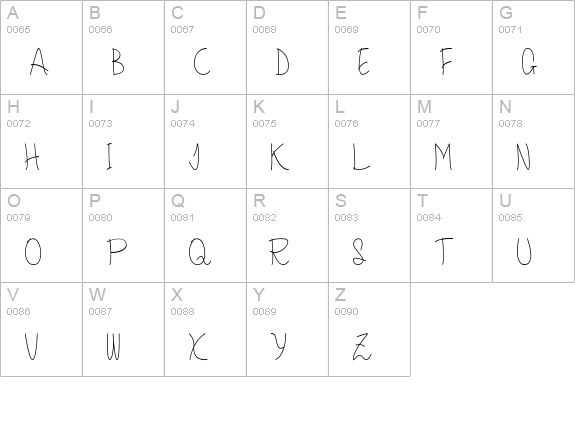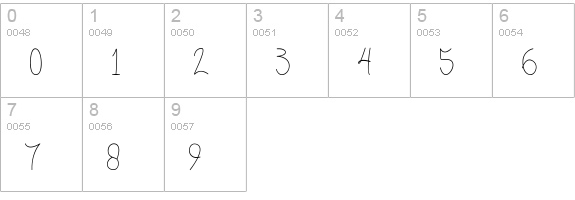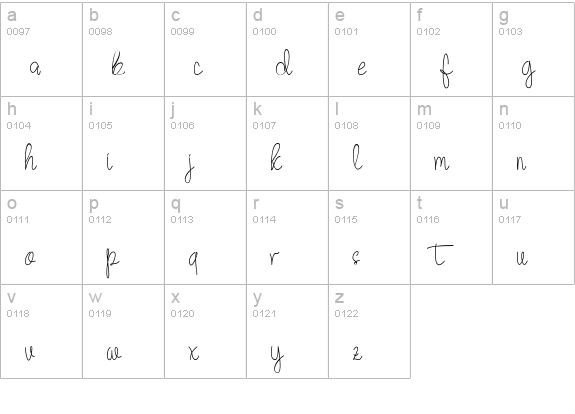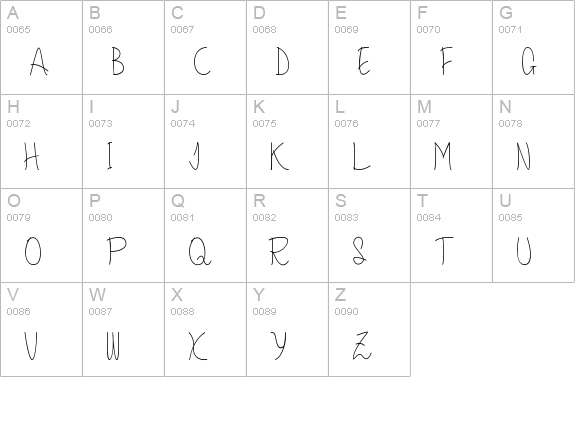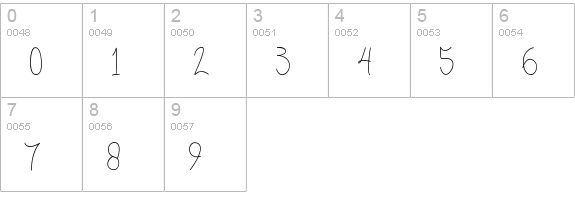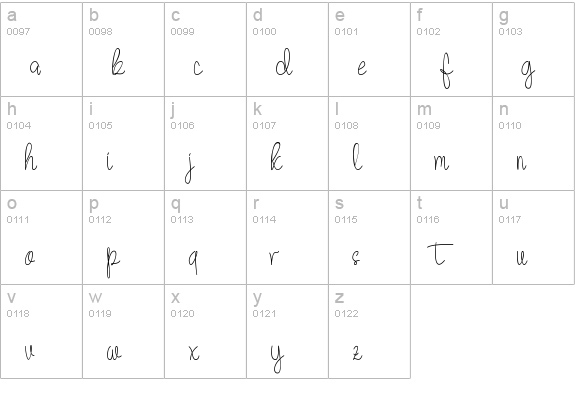
Quesky Font Details
Quesky font is a modern and stylish typeface that will add a touch of elegance to any design project. With its clean lines and sleek appearance, this font is perfect for creating eye-catching headlines, logos, and branding materials. Its versatility and readability make it suitable for a wide range of applications, from digital to print.